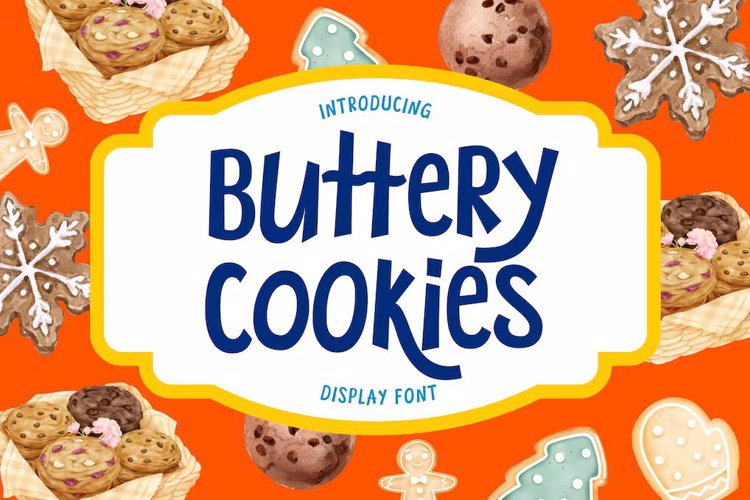
Buttery Cookies Font
Introducing “Buttery Cookies,” your gateway to a world of fun and playfulness in the realm of fonts. This hand-drawn display font is designed to bring a touch of nostalgia with its retro charm, yet it’s infused with a modern and fresh twist that makes it perfect for today’s social media-driven world.
Whether you’re aiming to create eye-catching social media posts, captivating promotional materials, or delightful content for kids and beyond, “Buttery Cookies” is your ideal companion. Its whimsical strokes and carefully crafted letterforms add a touch of personality to your designs, ensuring they stand out in a crowd.
Picture your text playfully dancing across the screen or printed on promotional materials, spreading smiles and joy. With “Buttery Cookies,” your creativity knows no bounds, and your message is sure to leave a lasting impression.
Unlock a world of possibilities with this charming, versatile font that’s as delightful as a plate of fresh-baked cookies. Try “Buttery Cookies” today and watch your designs come to life with a sprinkle of fun and playfulness.